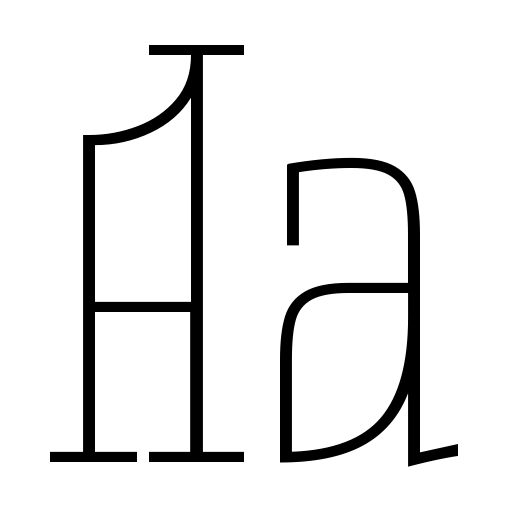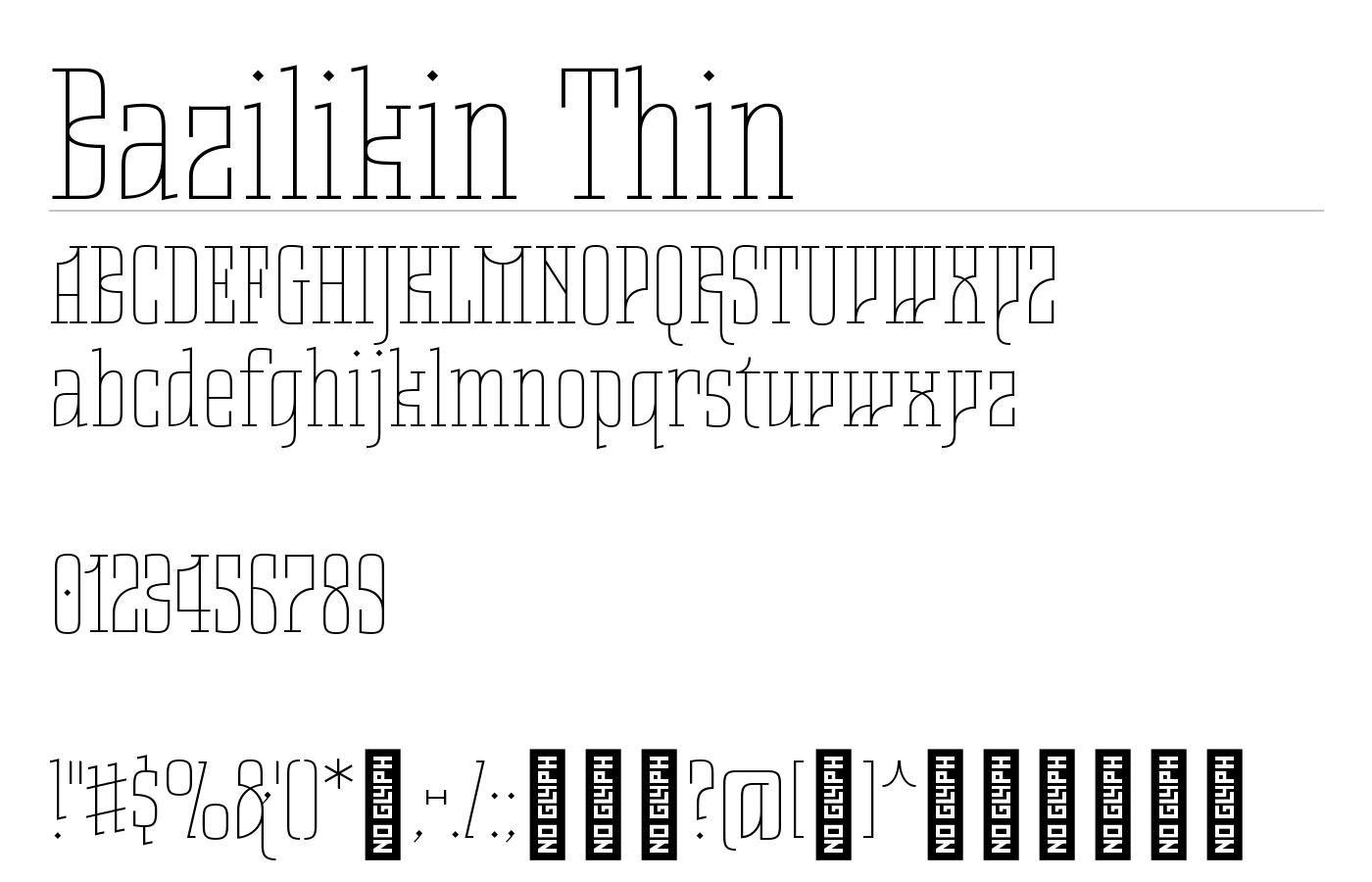
Bazilikin Thin is a highly stylized, condensed serif font with ultra-thin strokes and a unique geometric character. Its tall x-height and intricate letterforms give it an elegant, modern yet slightly vintage feel, making it ideal for sophisticated headlines, fashion branding, or creative editorial design where distinctiveness and finesse are desired. This font's delicate structure works best in large sizes, adding a refined, artistic touch to any project.
Bazilikin Font
About Bazilikin Font
| Font family | Bazilikin Font |
| Designer | Tzuyuan Yin |